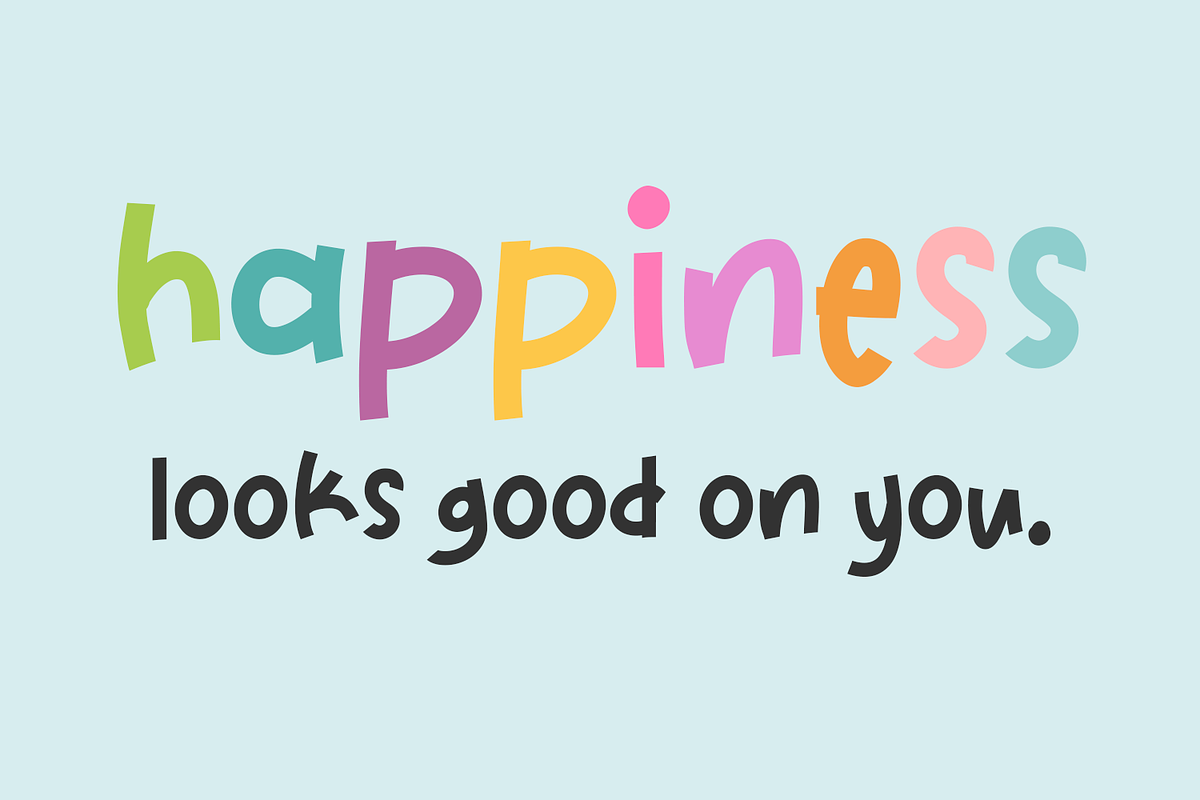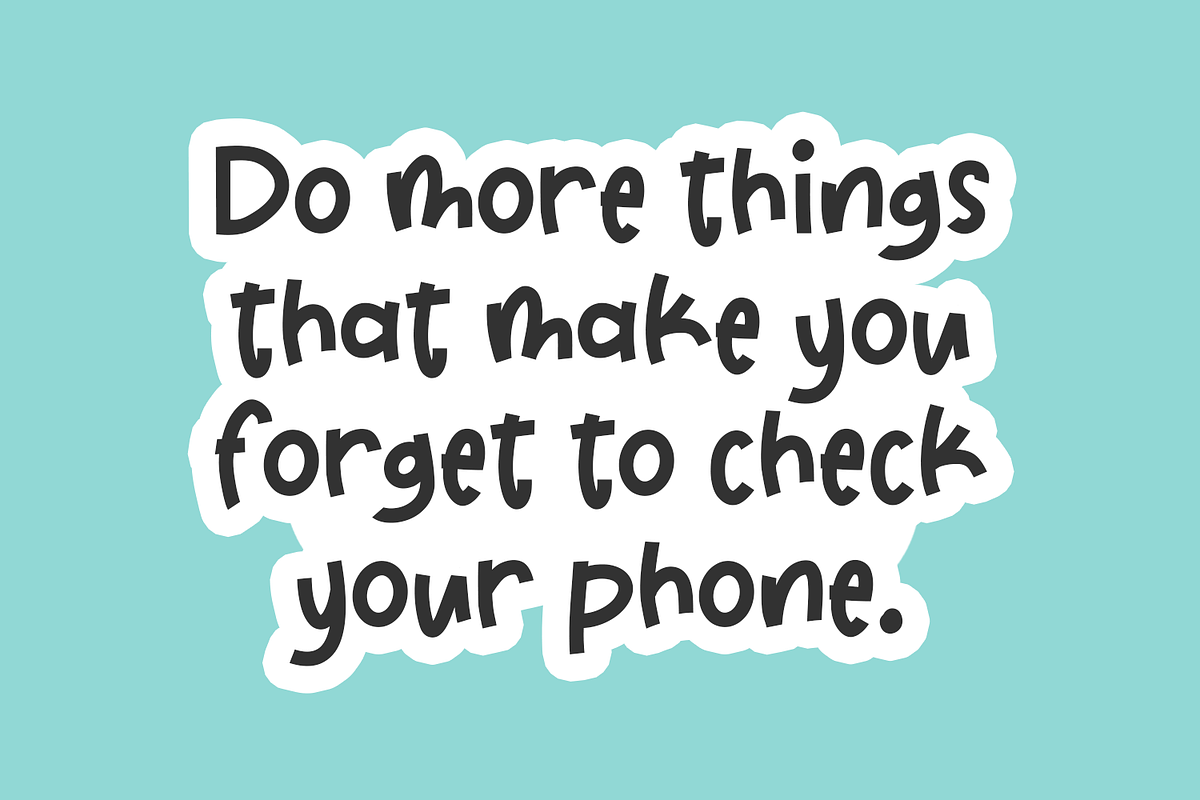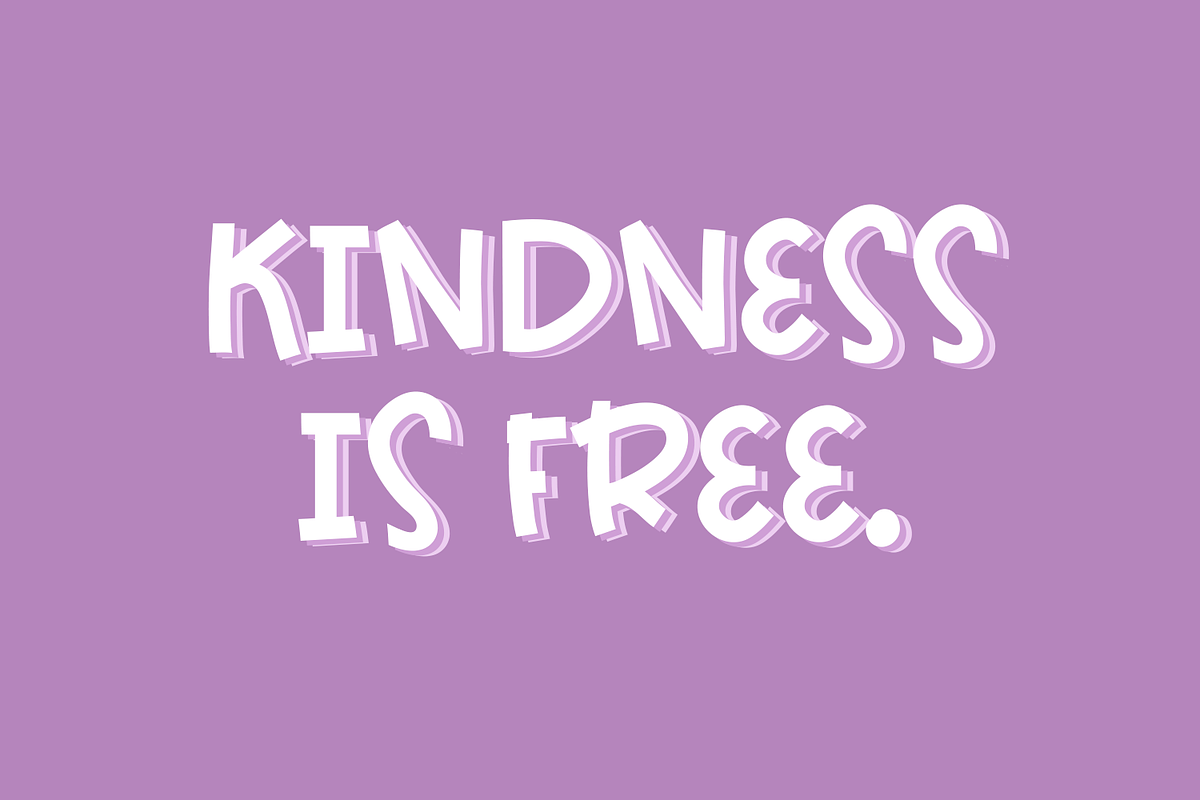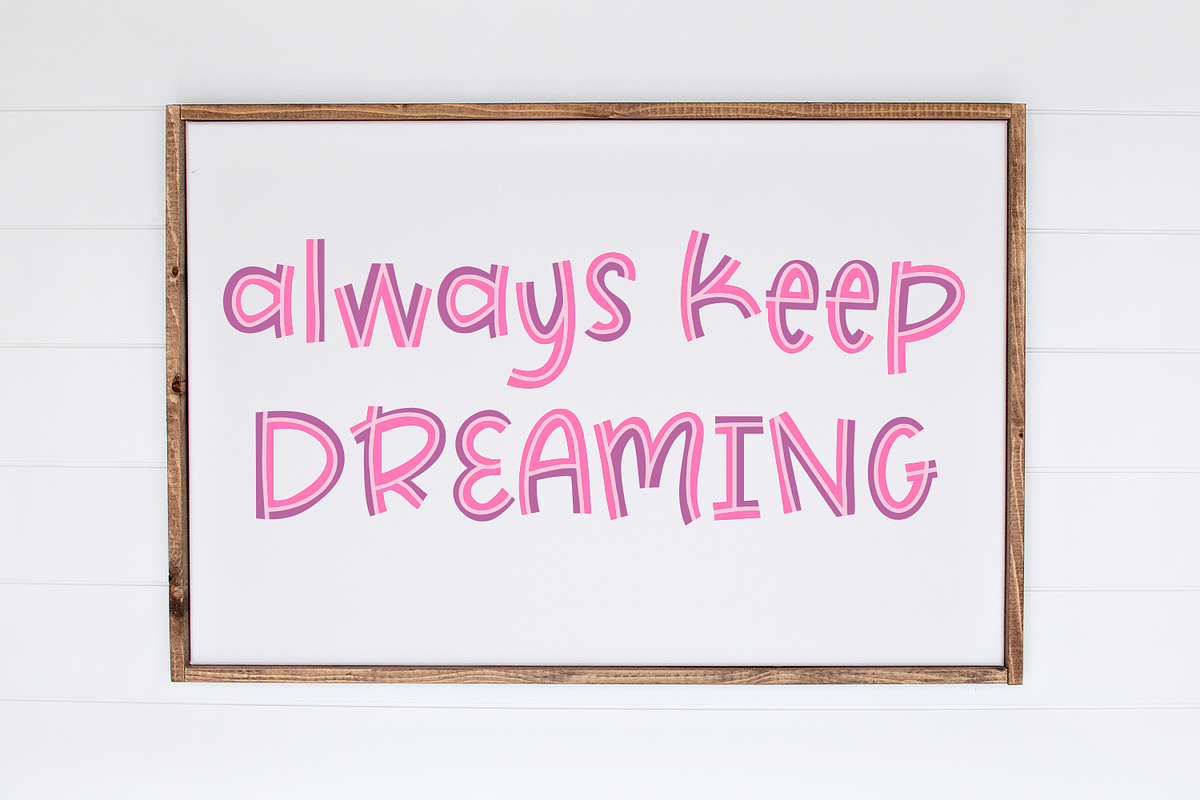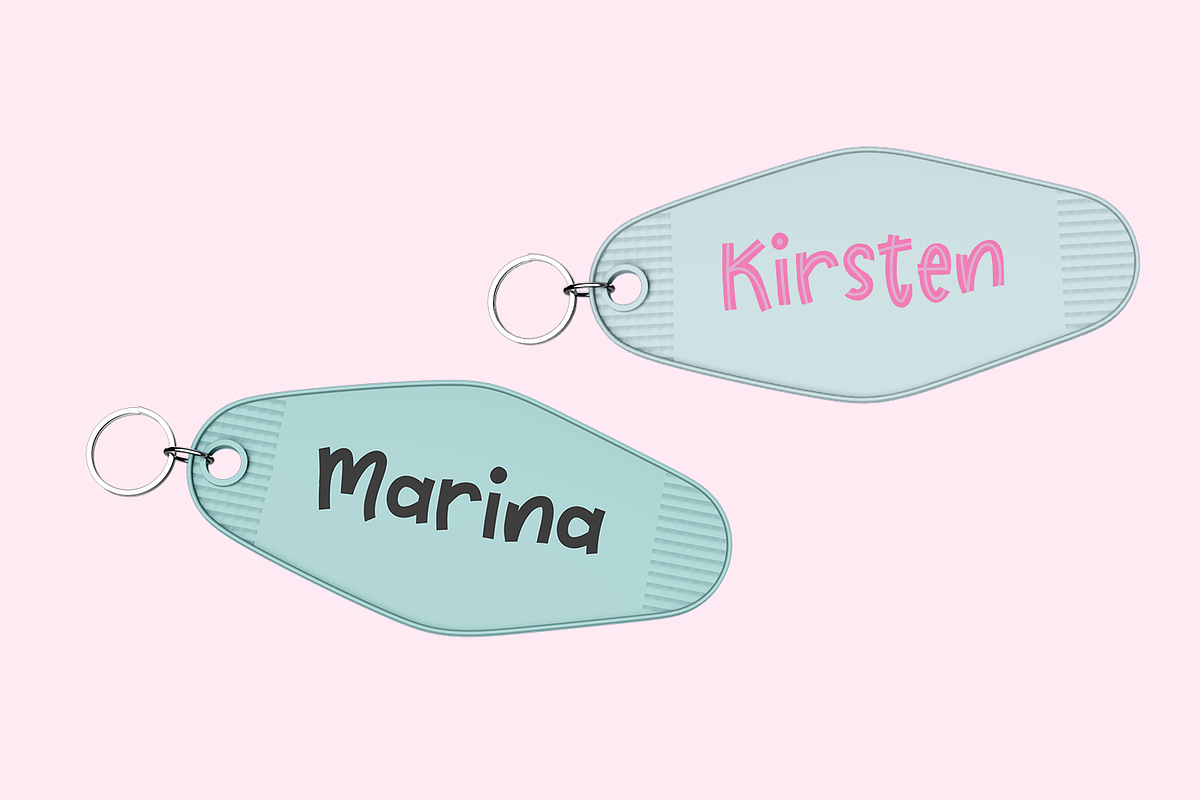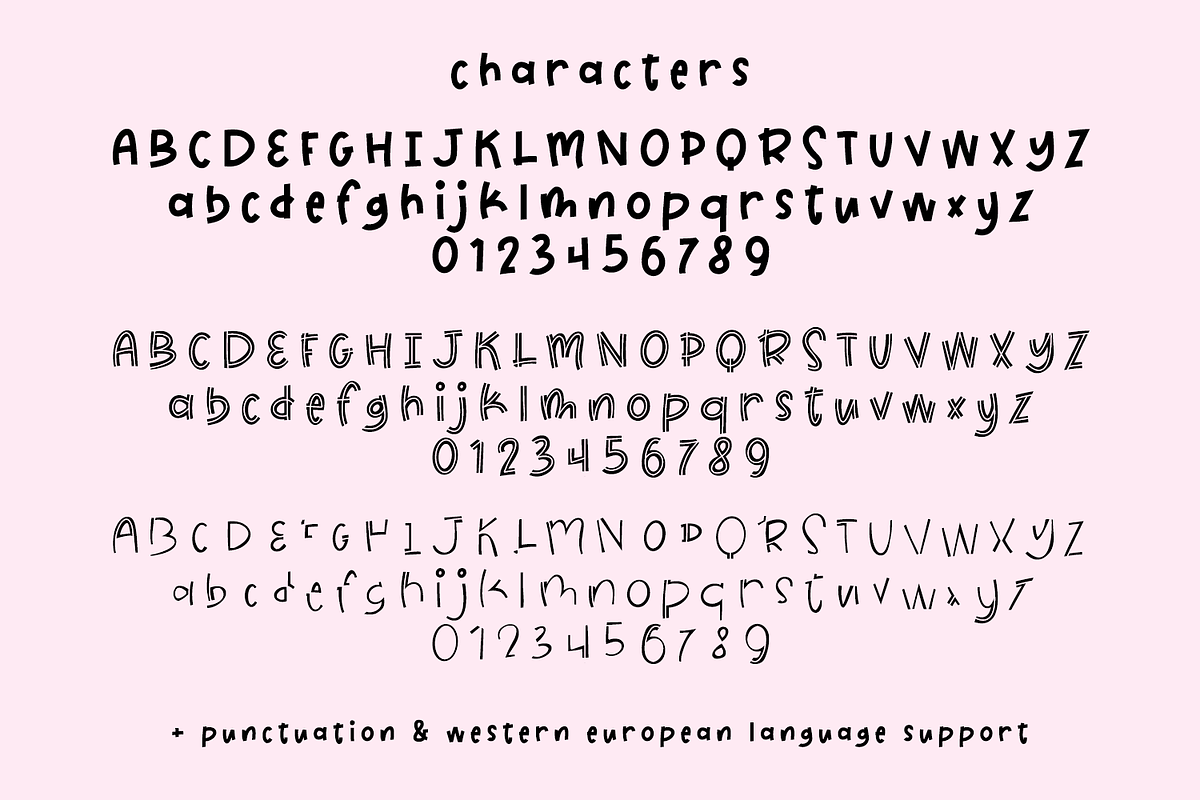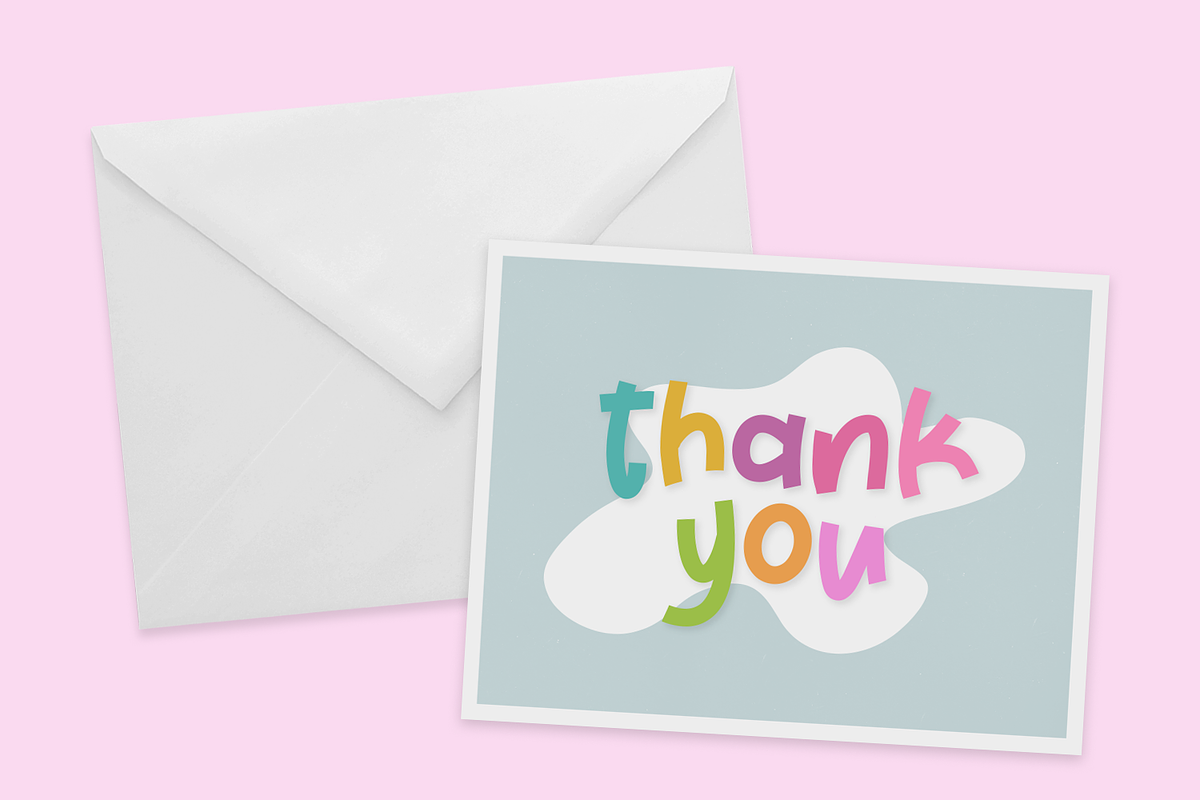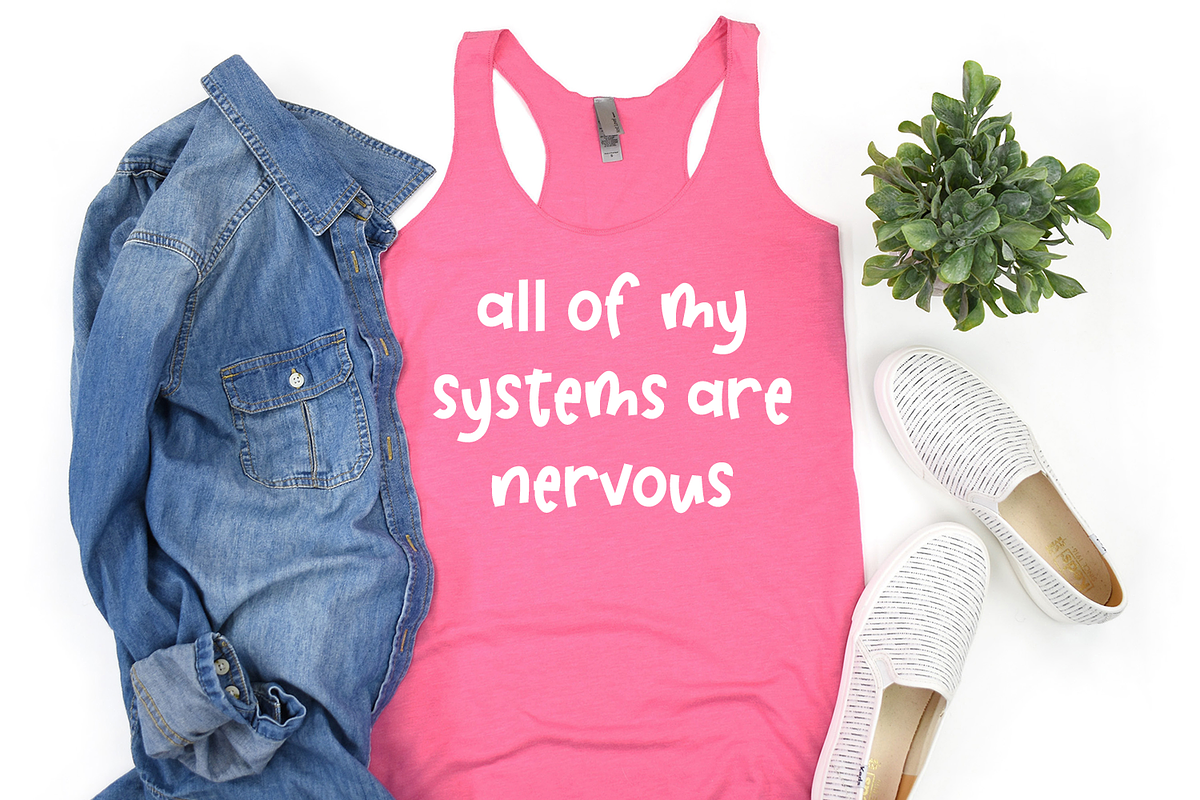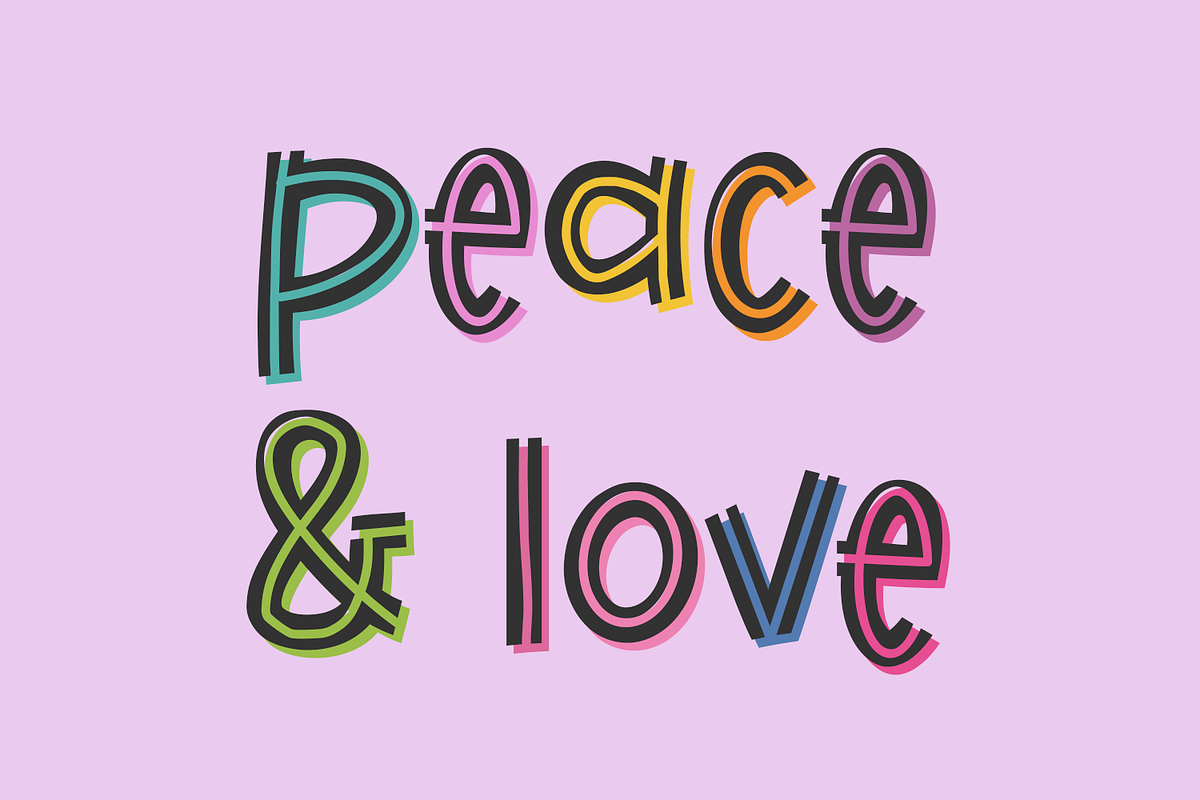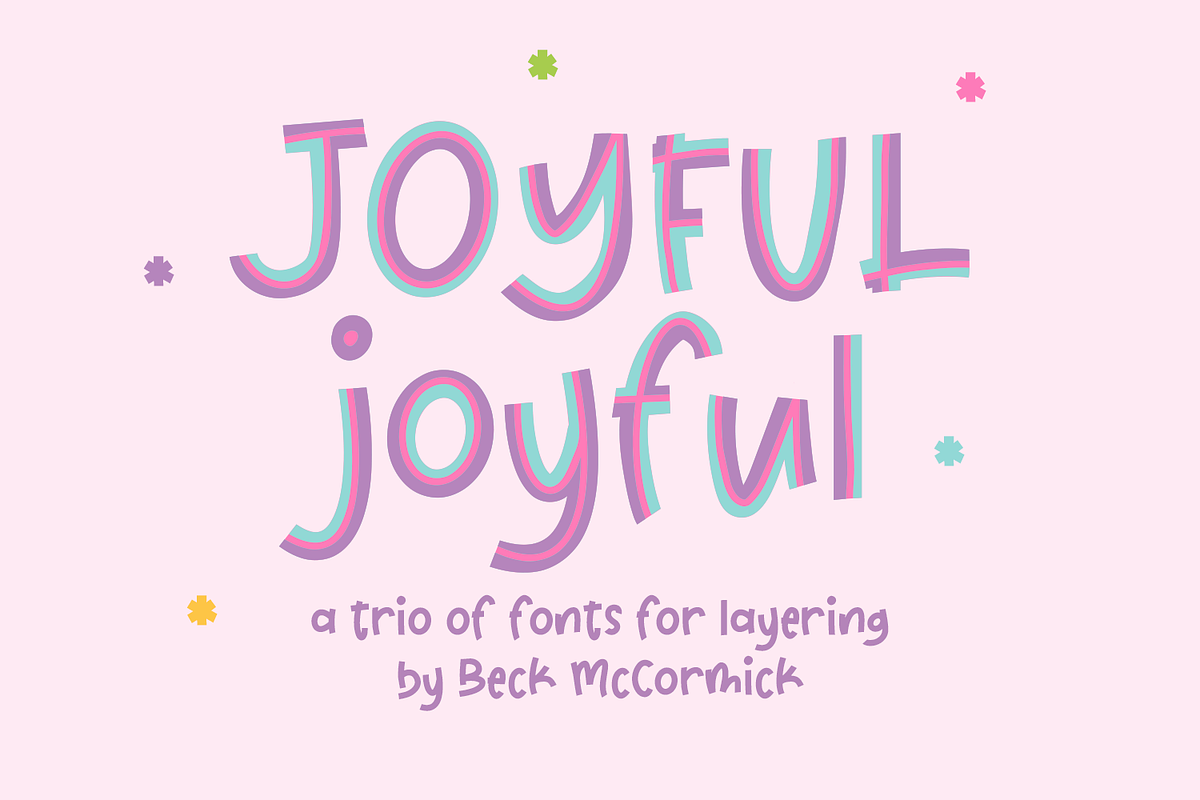
Joyful Joyful Sans
Say hello to Joyful Joyful, a playful font trio, sure to add a fun touch to your creative project. Use Joyful Joyful fonts individually, or mix & match versions to create a fun layered effect. Joyful Joyful is best for feminine crafty projects or SVG design businesses, farmhouse decor and crafts, logos, branding, marketing materials, social media graphics, or shirt design.
Joyful Joyful has three versions - solid, inline, and partial, and they each include:
- uppercase characters A-Z programmed into both upper & lowercase spots
- numbers 0-9
- punctuation
- Western European Language Support